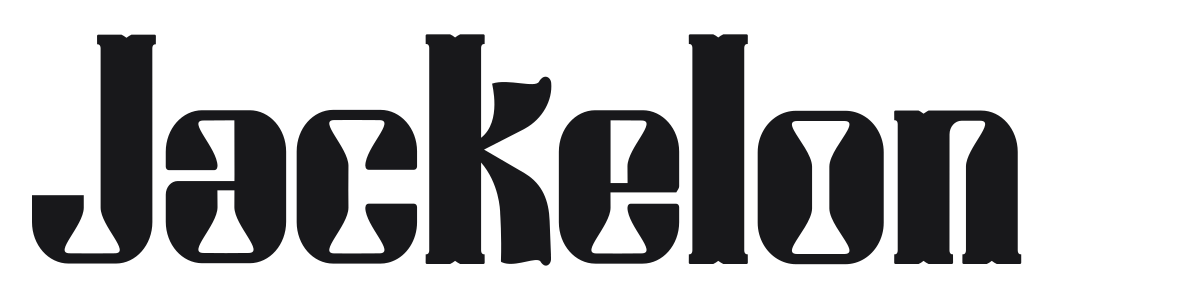
Jackelon
Jackelon is a heavy condensed serif loaded with decorative notches and diamond cuts carved into its thick stems. The result sits somewhere between Art Deco display type and blackletter, with enough ornamental detail to command attention at large sizes. It carries the weight and drama of vintage poster printing.